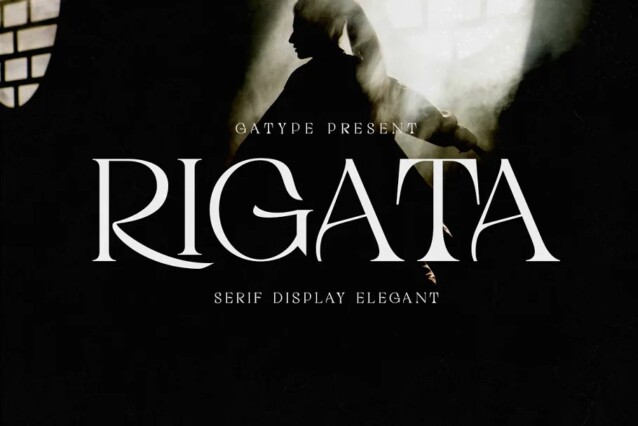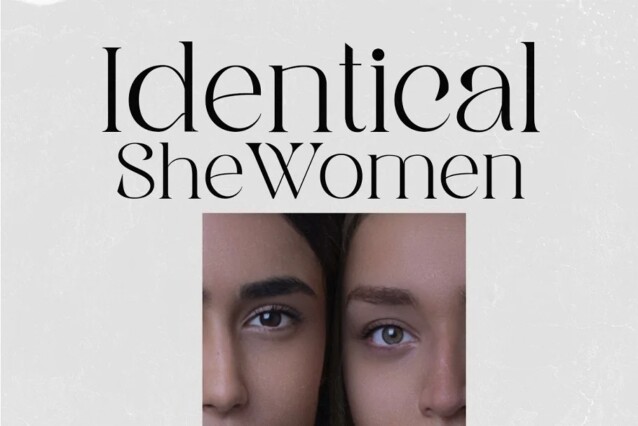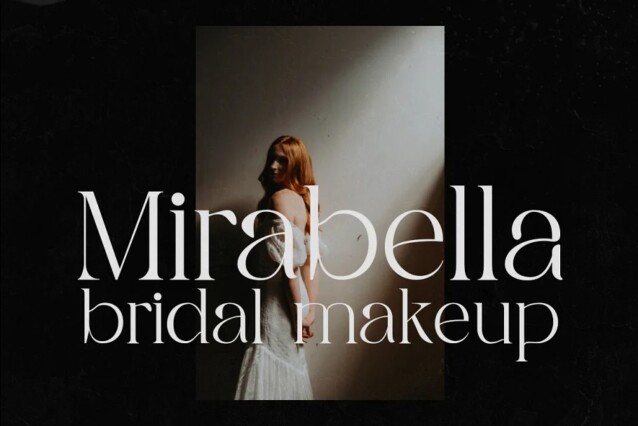
Rigata Font
Rigata Font is a high contrast typeface inspired by old style and contemporary fonts. Perfect for invitations, logos, branding, greetings, social media themes and wedding invitation designs. It is also a great typeface for titles because of its smooth design and attractive appearance.